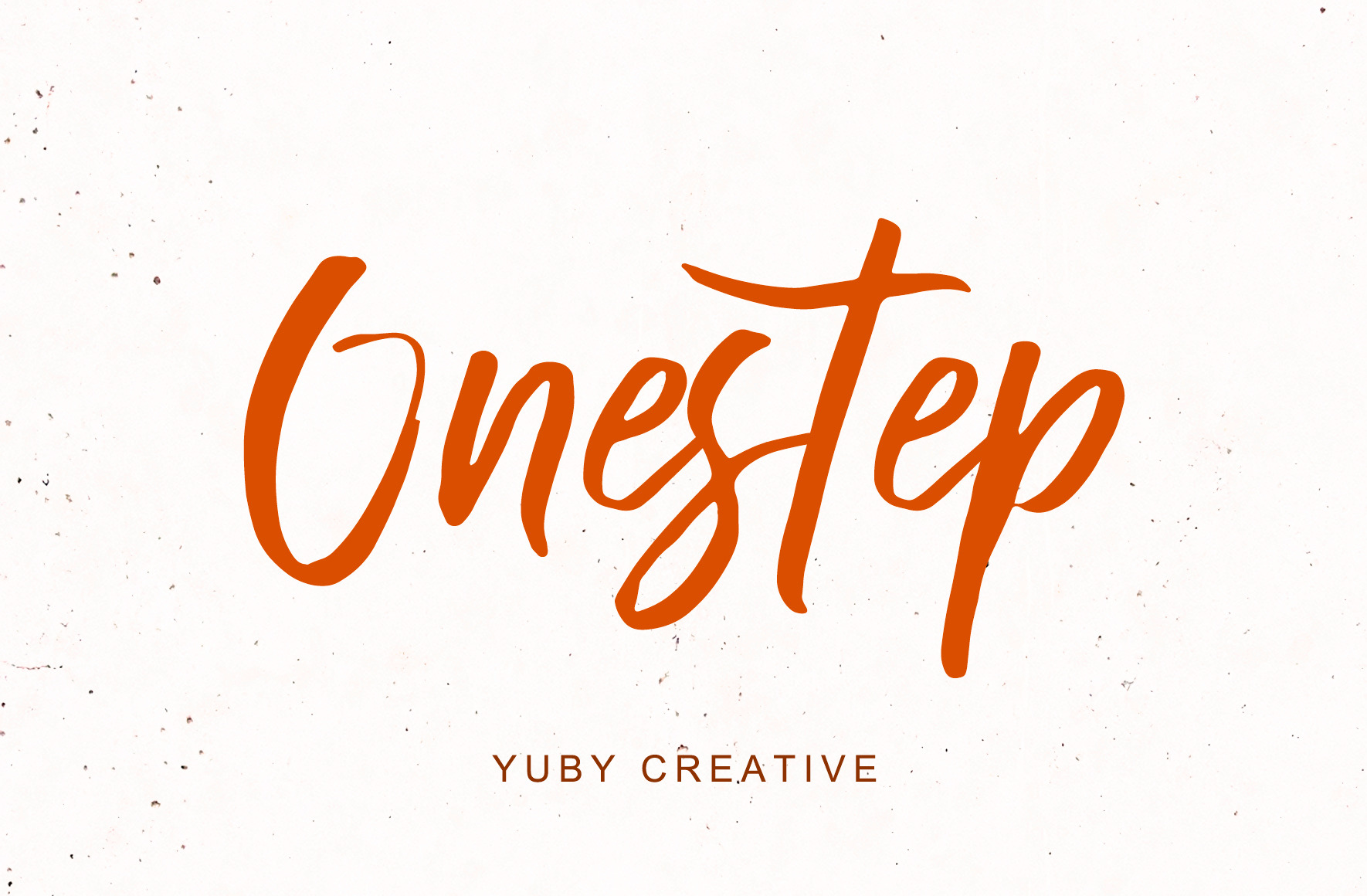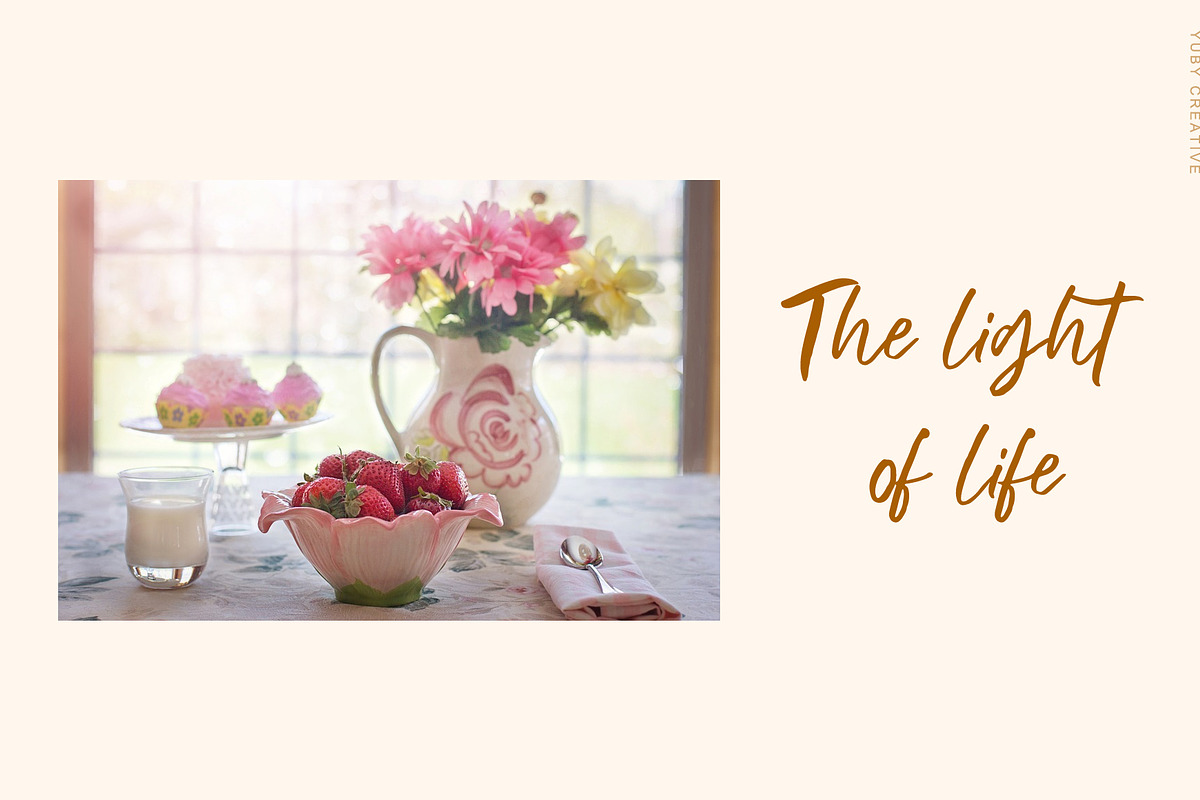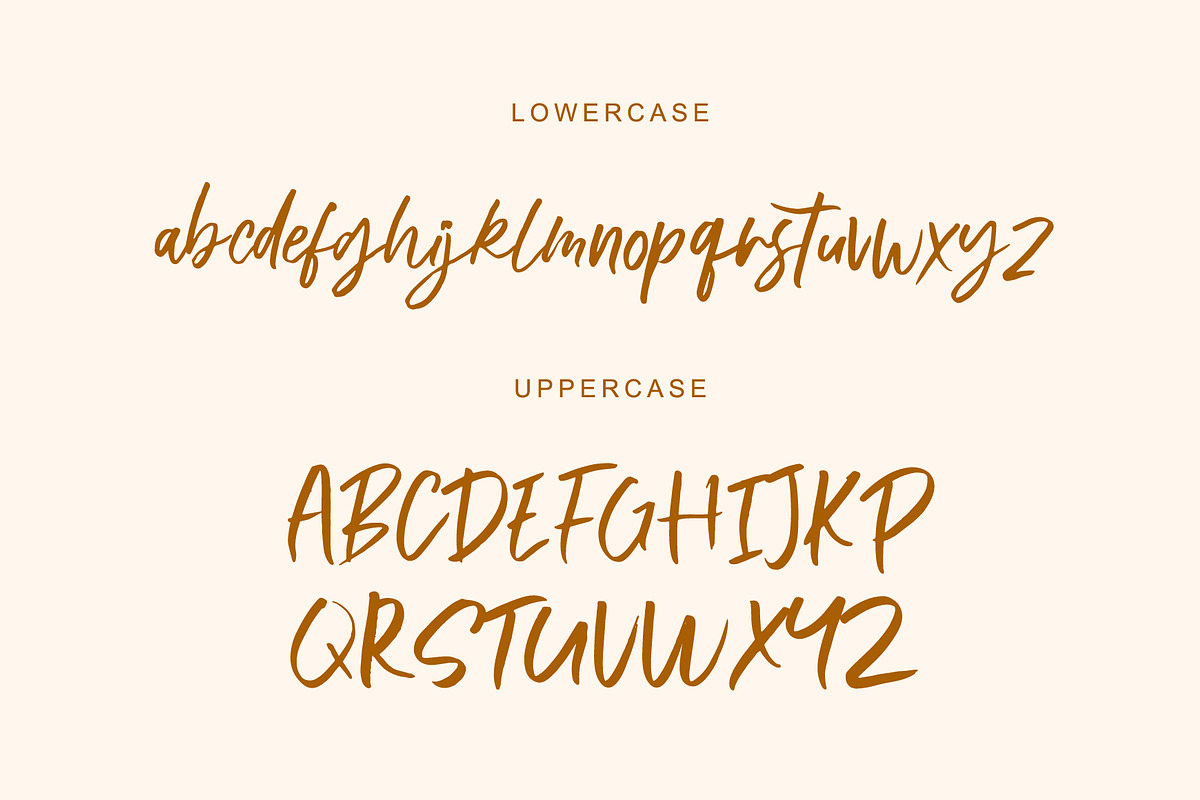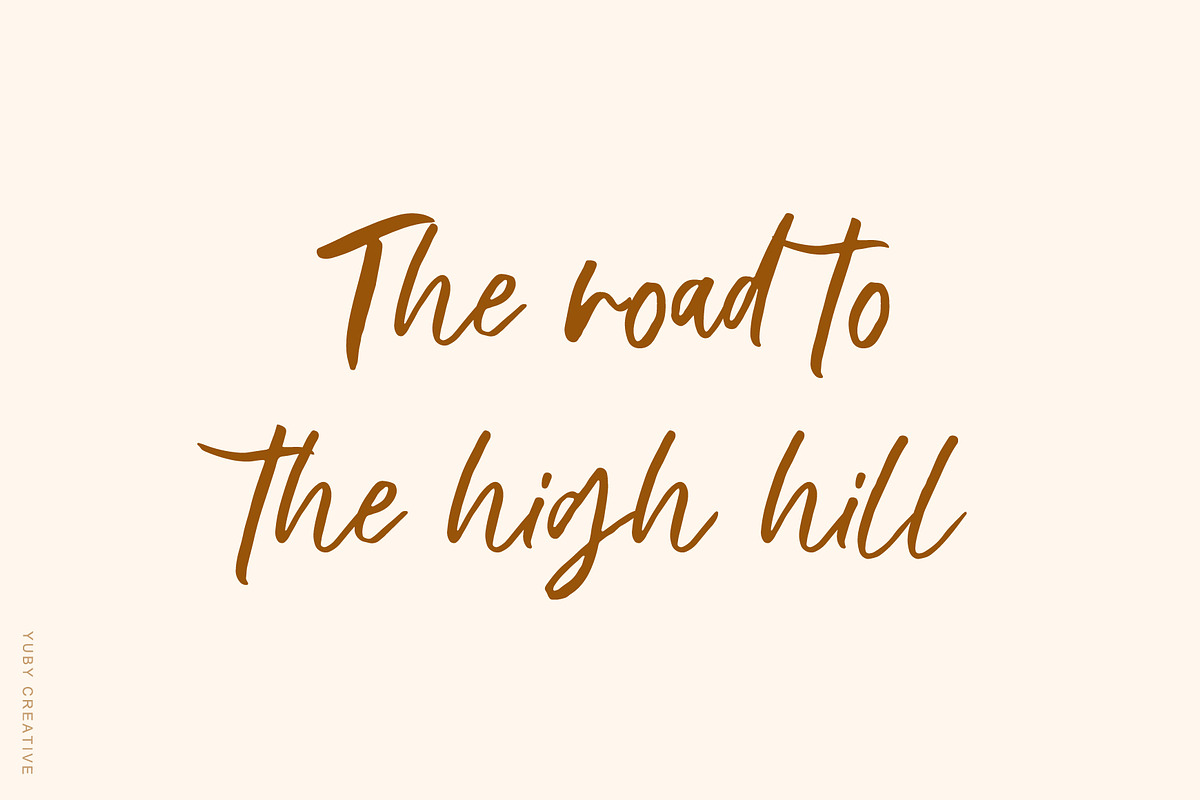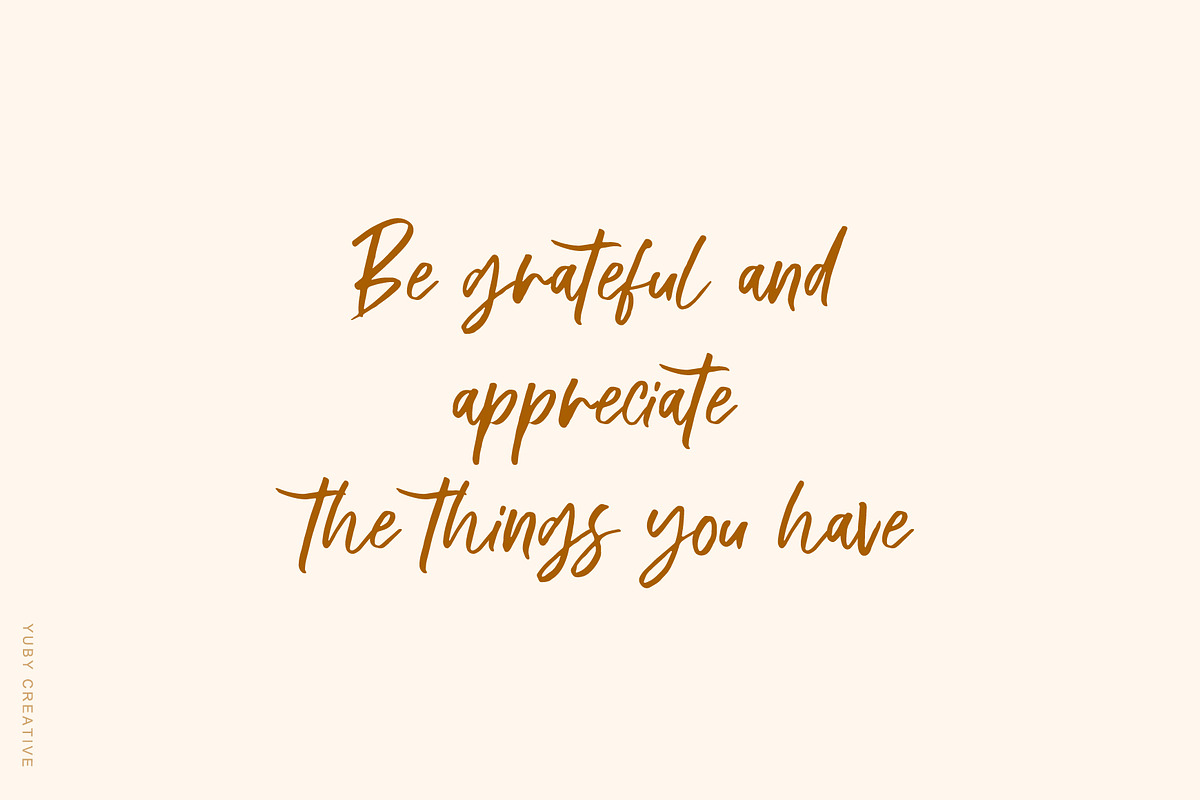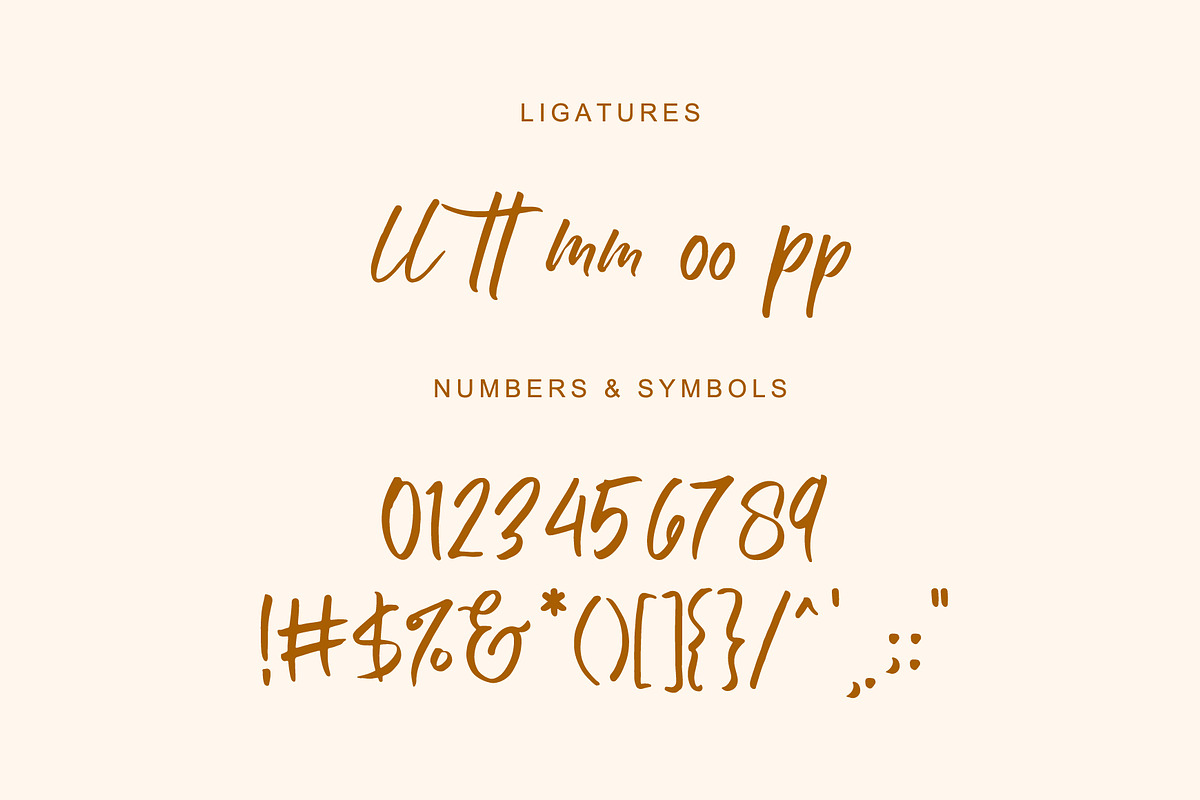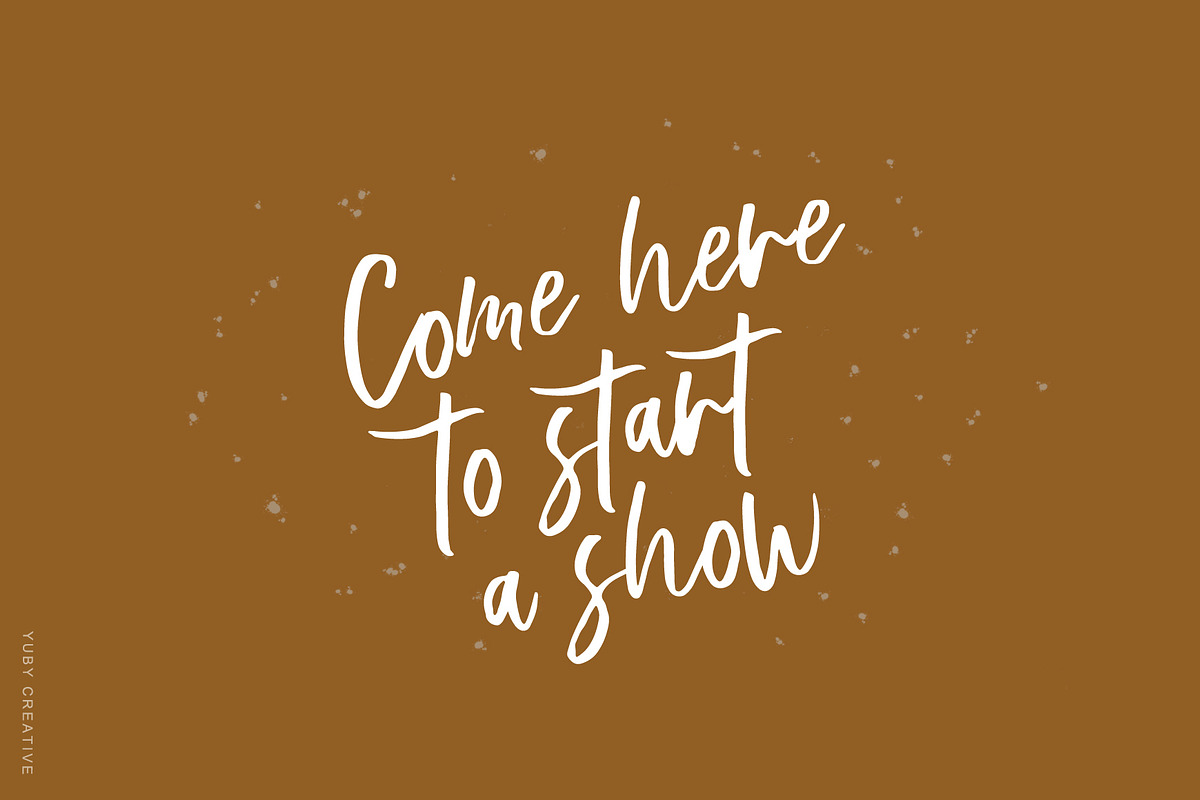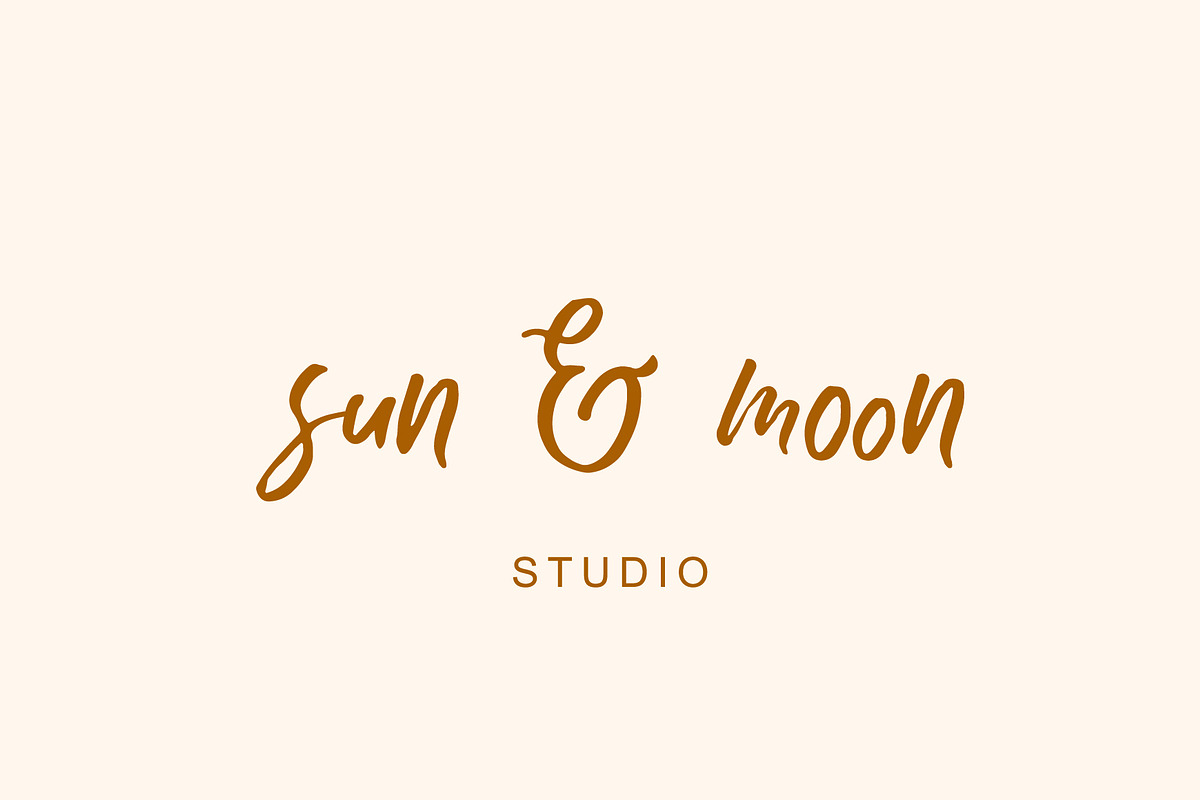
Onestep Handmade Brush Font
Onestep is a handmade brush script font perfect for creating logos, signage, social media, blog posts, stylish quotes, packaging, business cards, watermarks and many others...